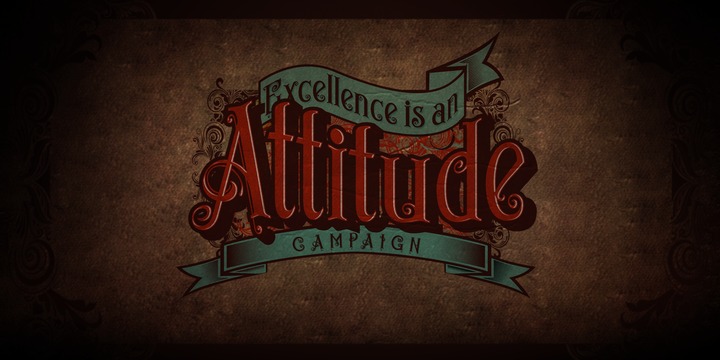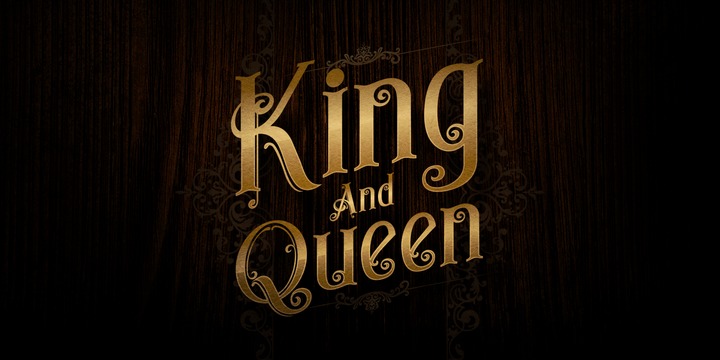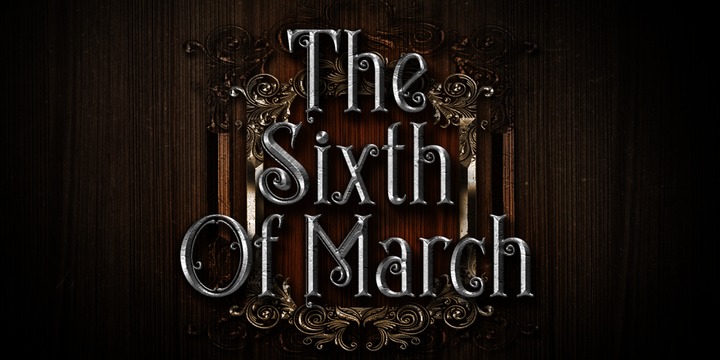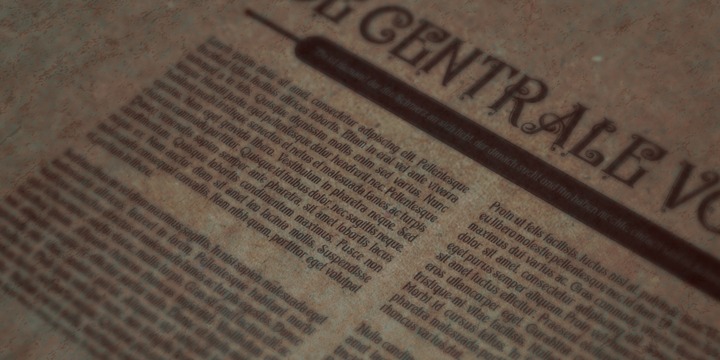
Egorycastle Font
Egory castle was inspired from the history of the medieval age. The idea was to make us interested to explore in the aspect of art and decorative letters forms. Lots of studies that we have learned from history in middle age and inspiration from many different sources make very valuable references for us to develop a new idea in the development of this typeface.